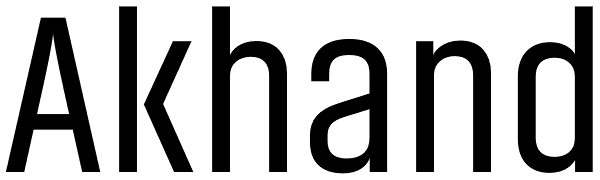
Akhand
Akhand is a family of eight fonts for display applications. Featuring condensed straight-sided letterforms, Akhand is a virtually mono-linear sans serif. The design of the face is based on a modular structure, but not every aspect looks constructed...